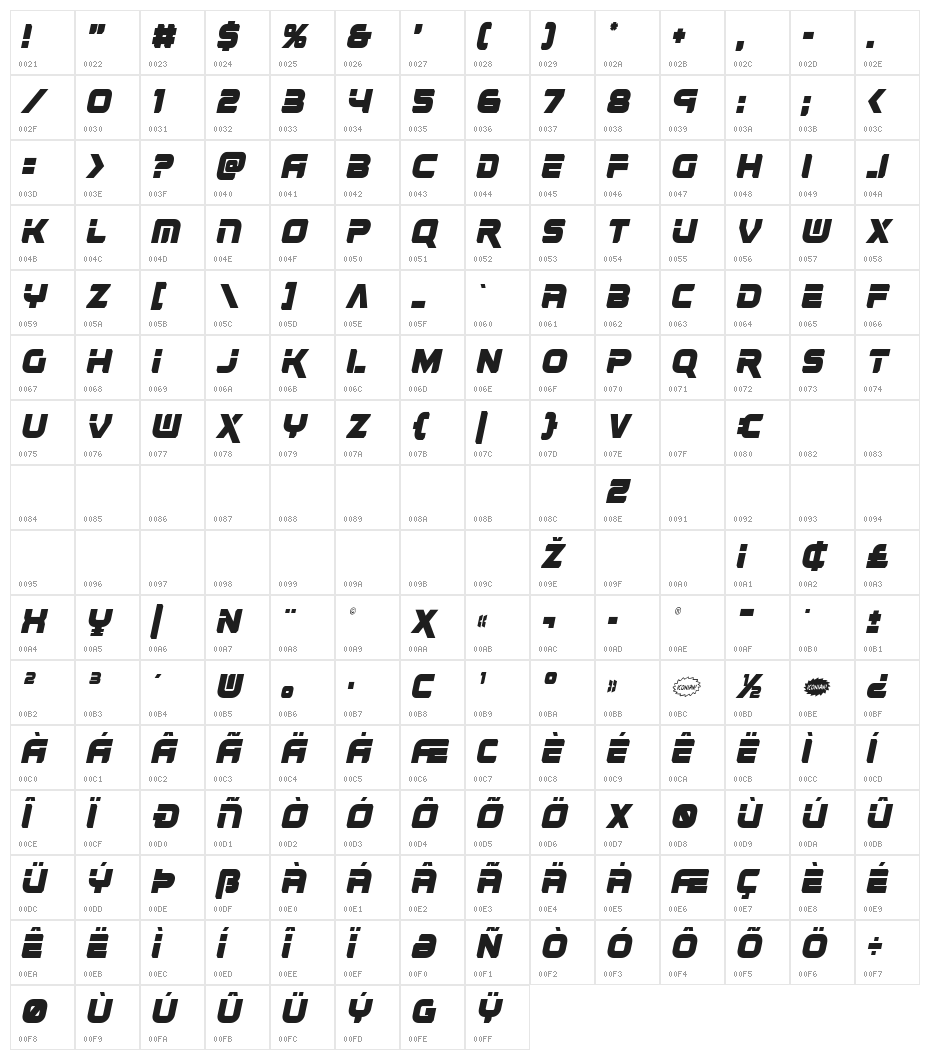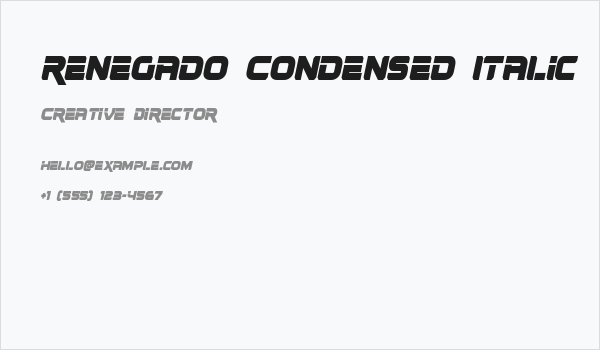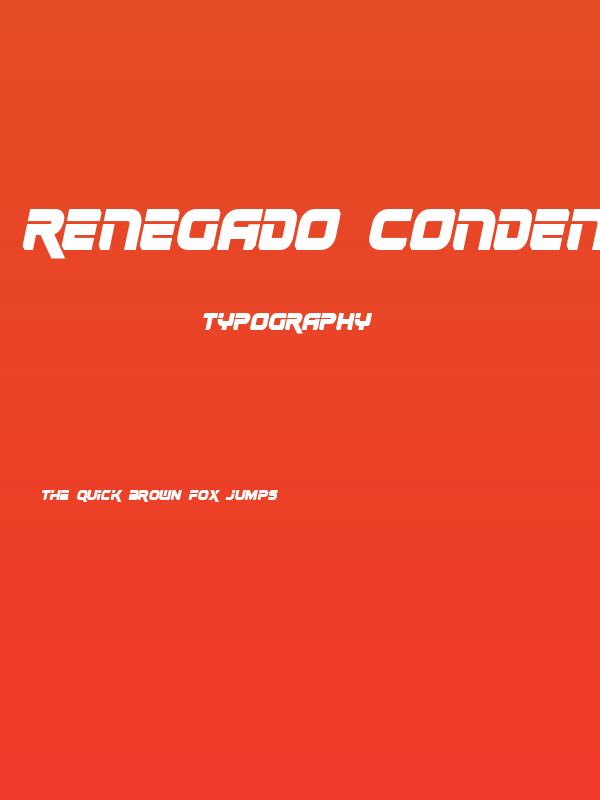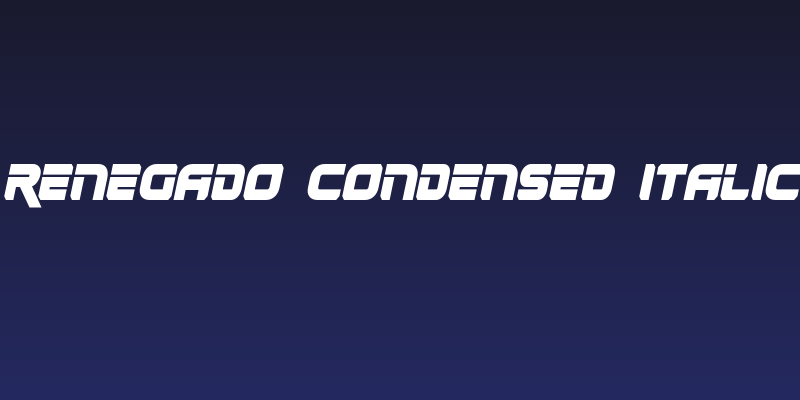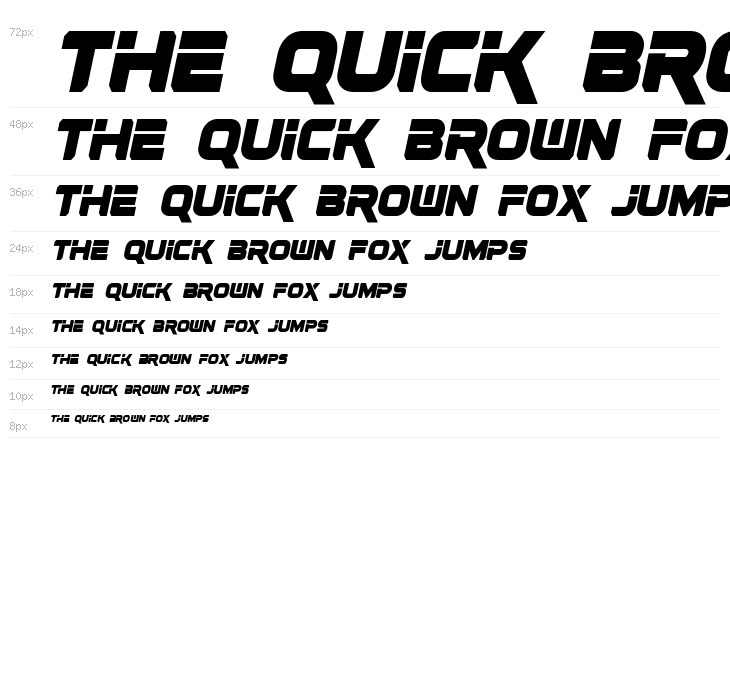
Renegado Condensed Italic Font
Renegado Condensed Italic Description
This font features a bold and dynamic style with a condensed and italicized form, giving it a strong and modern appearance. The characters are designed with sharp angles and a forward-leaning posture, enhancing its energetic and futuristic look. The uppercase letters are prominent, with a consistent stroke width that maintains readability while adding a sense of urgency and movement. The numerals and special characters follow the same design principles, ensuring a cohesive visual identity across all elements. This font's unique style makes it suitable for projects that require a bold statement.